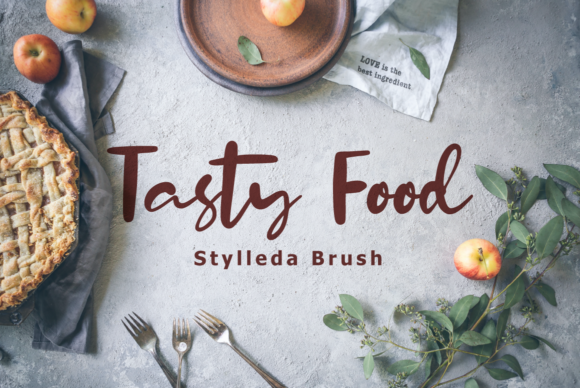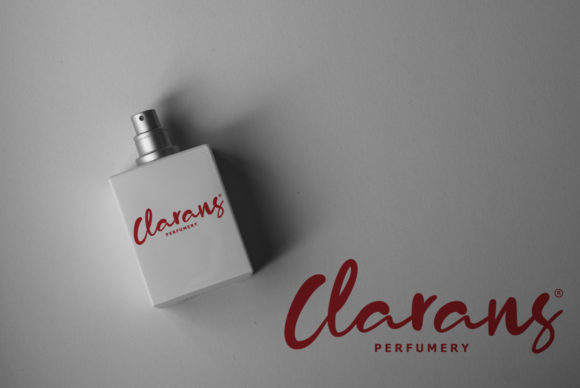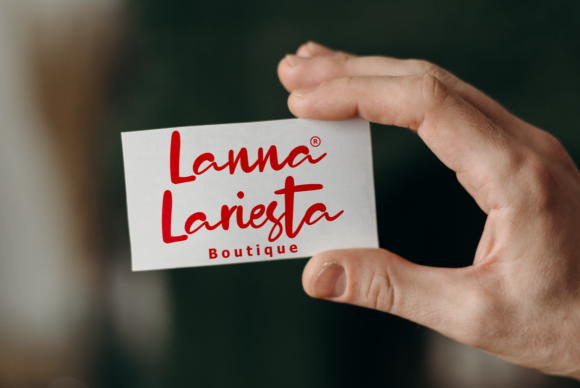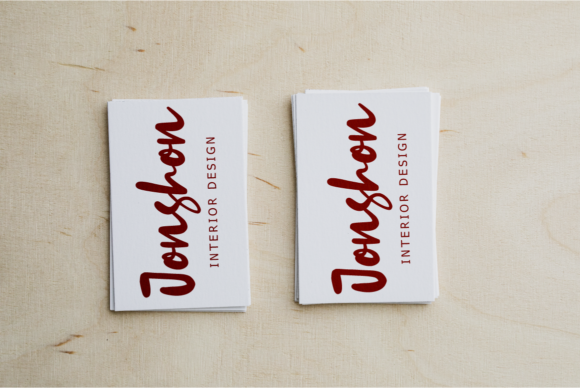
About Stylleda Font
Introducing Stylleda: The Casual, Sweet, and Brushed Handwritten Font
Step into a world of casual sweetness with Stylleda, a brushed handwritten font that exudes charm and playfulness. Whether you’re crafting, digital designing, creating presentations, or making greeting cards, Stylleda is the perfect choice! Embrace the delightful and carefree vibe of Stylleda as you add a touch of joy and personality to all your creative projects.
Stylleda’s casual and sweet appeal brings a sense of playfulness and spontaneity to your designs. Its brushed handwritten letterforms flow with a seamless charm, making your text exude a carefree and vibrant energy.
As a font that embodies a sweet and brushed style, Stylleda becomes the go-to choice for a wide range of creative endeavors. Its versatility ensures that it enhances your work, creating a lighthearted impact in every application.
Embrace the excitement of Stylleda as you embark on your creative journey. Let it be the font that elevates your designs, adding a sense of fun and creativity in every project.
As you explore the possibilities of Stylleda, you’ll find it to be a font that enhances your designs with ease. Its casual and brushed handwritten charm transforms your work, ensuring that your creations leave a lasting impression.
So, let Stylleda be the font that brings joy to your designs. Embrace its sweet and carefree touch, and watch as your crafting, digital designs, presentations, and greeting cards come to life with a touch of lively spirit. With Stylleda as your go-to font, your designs will resonate with enthusiasm and creativity, captivating your audience and leaving a lasting impression. Embrace the playful essence of Stylleda and create designs that are truly delightful and unforgettable!